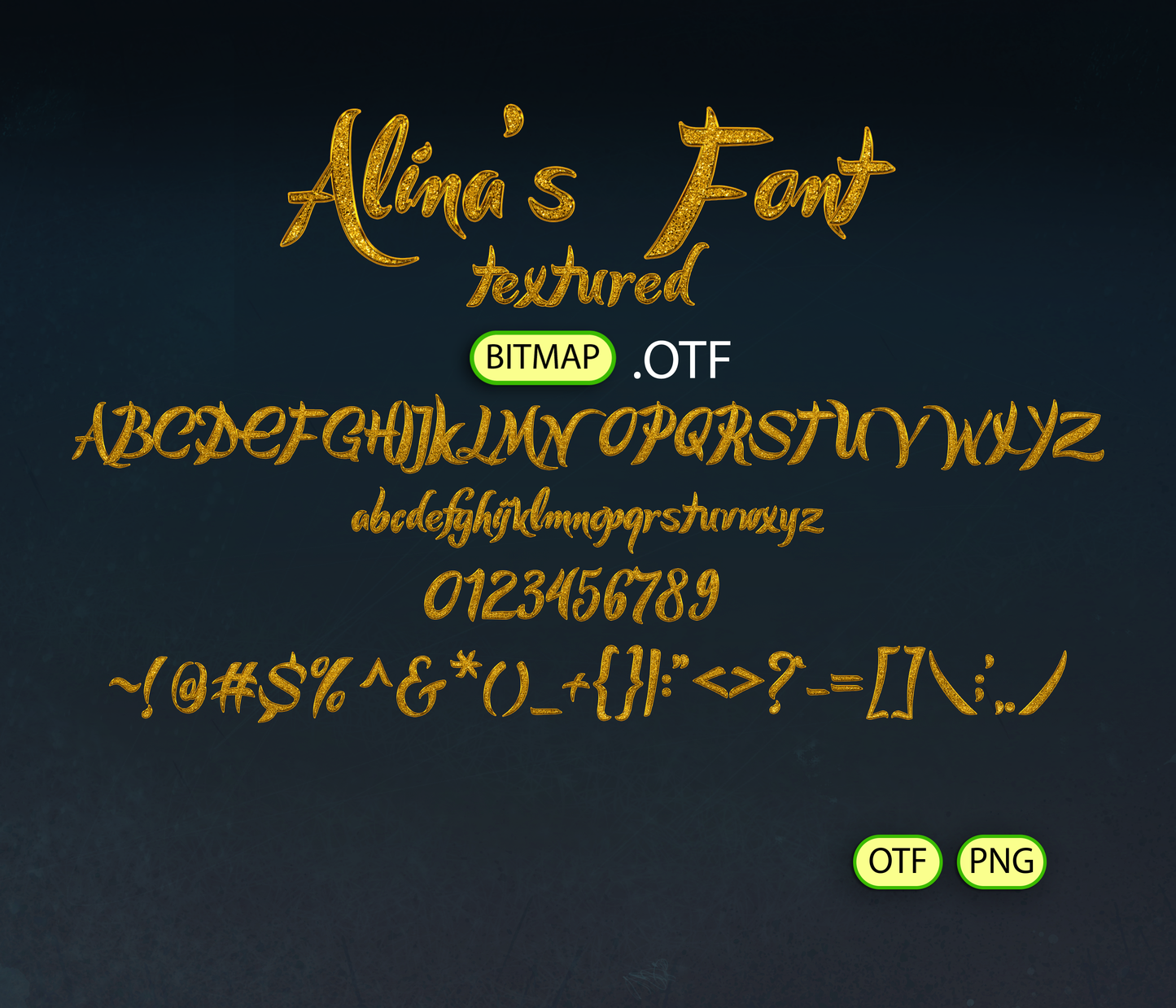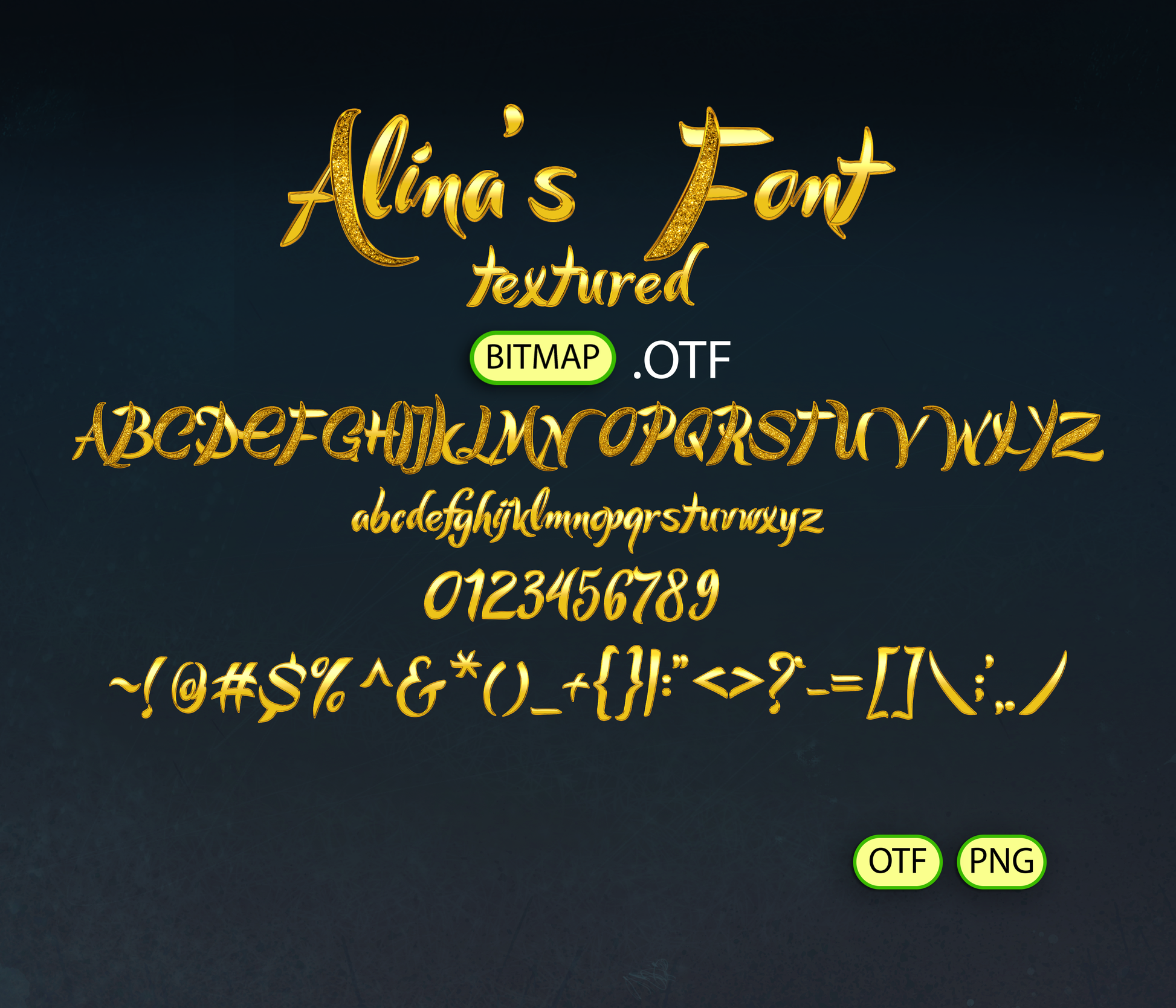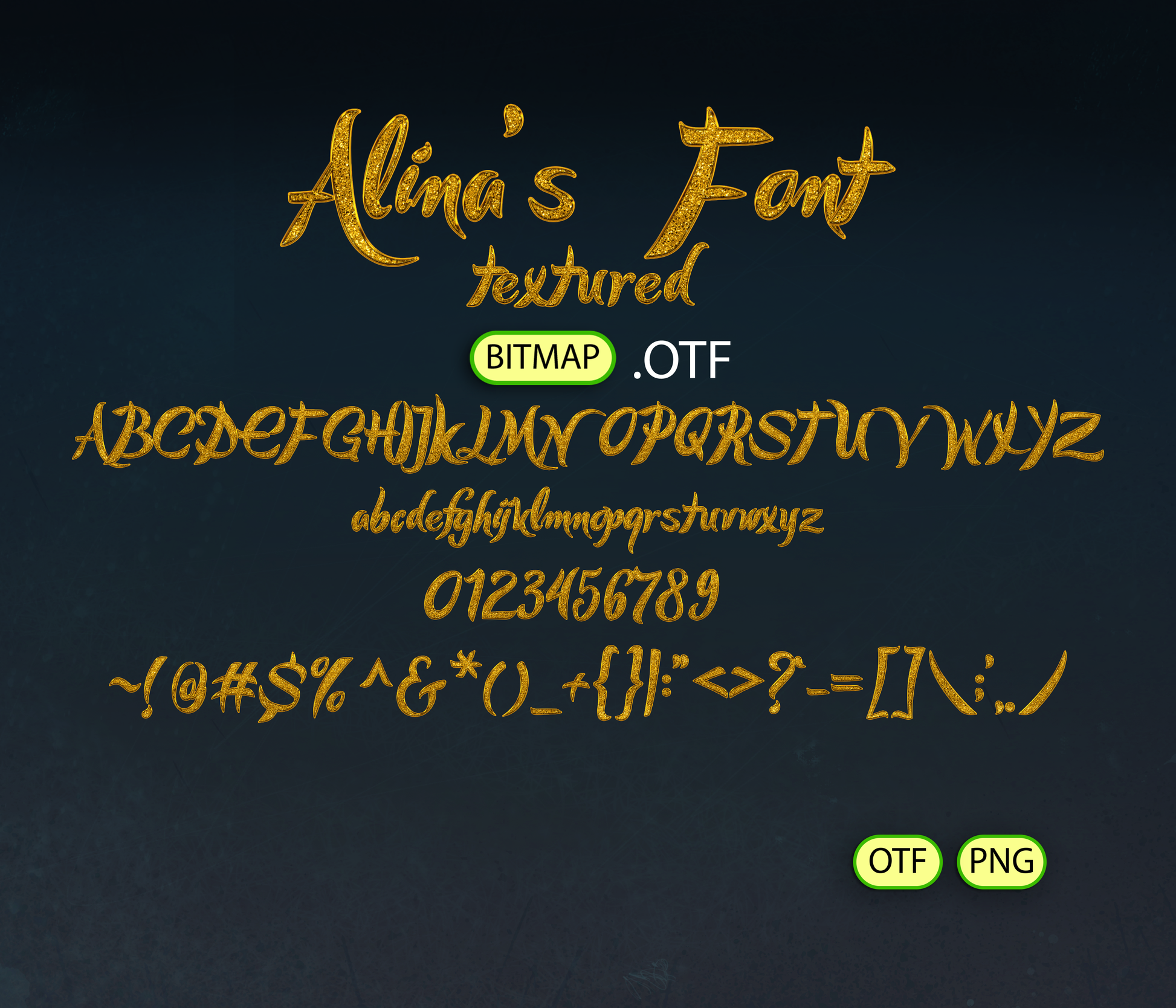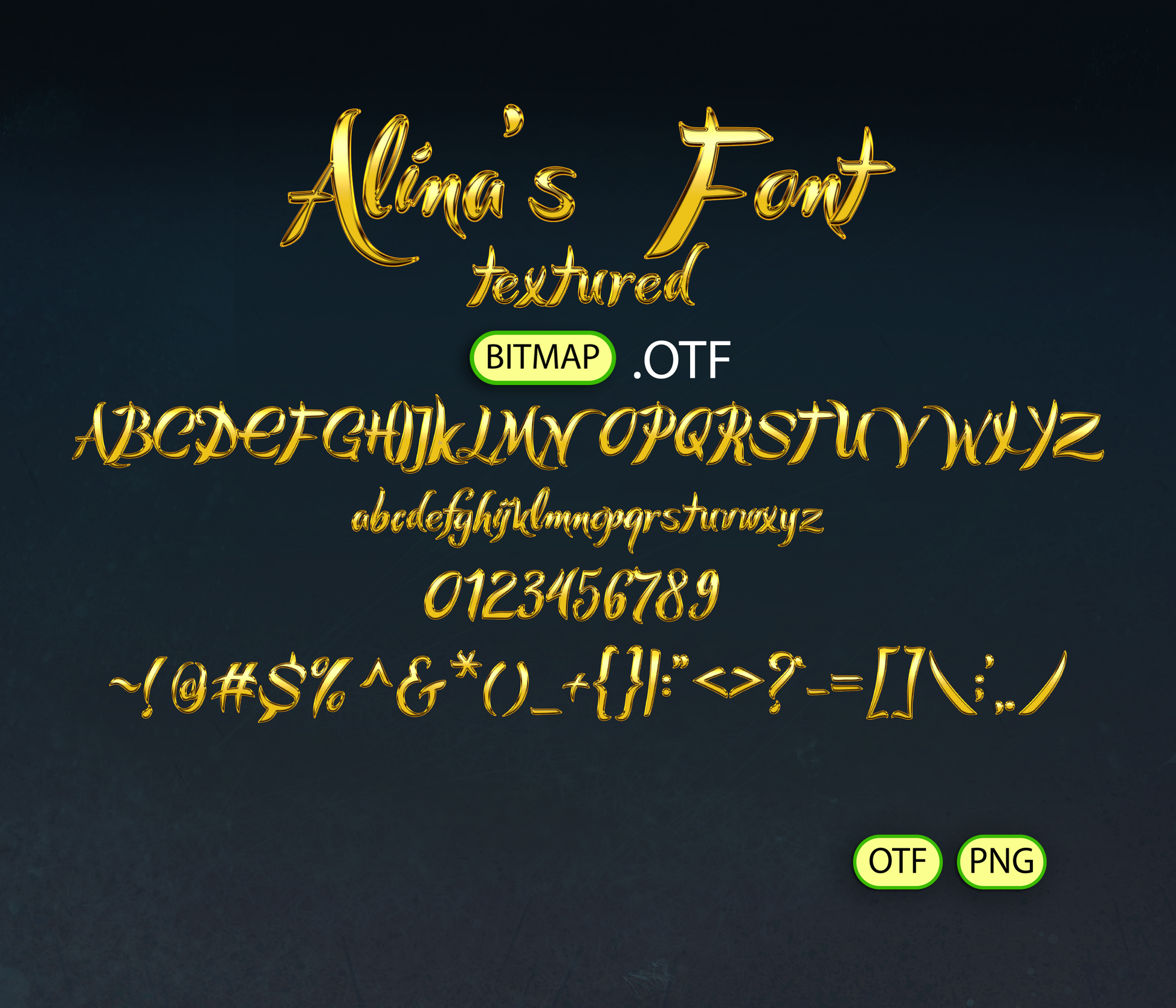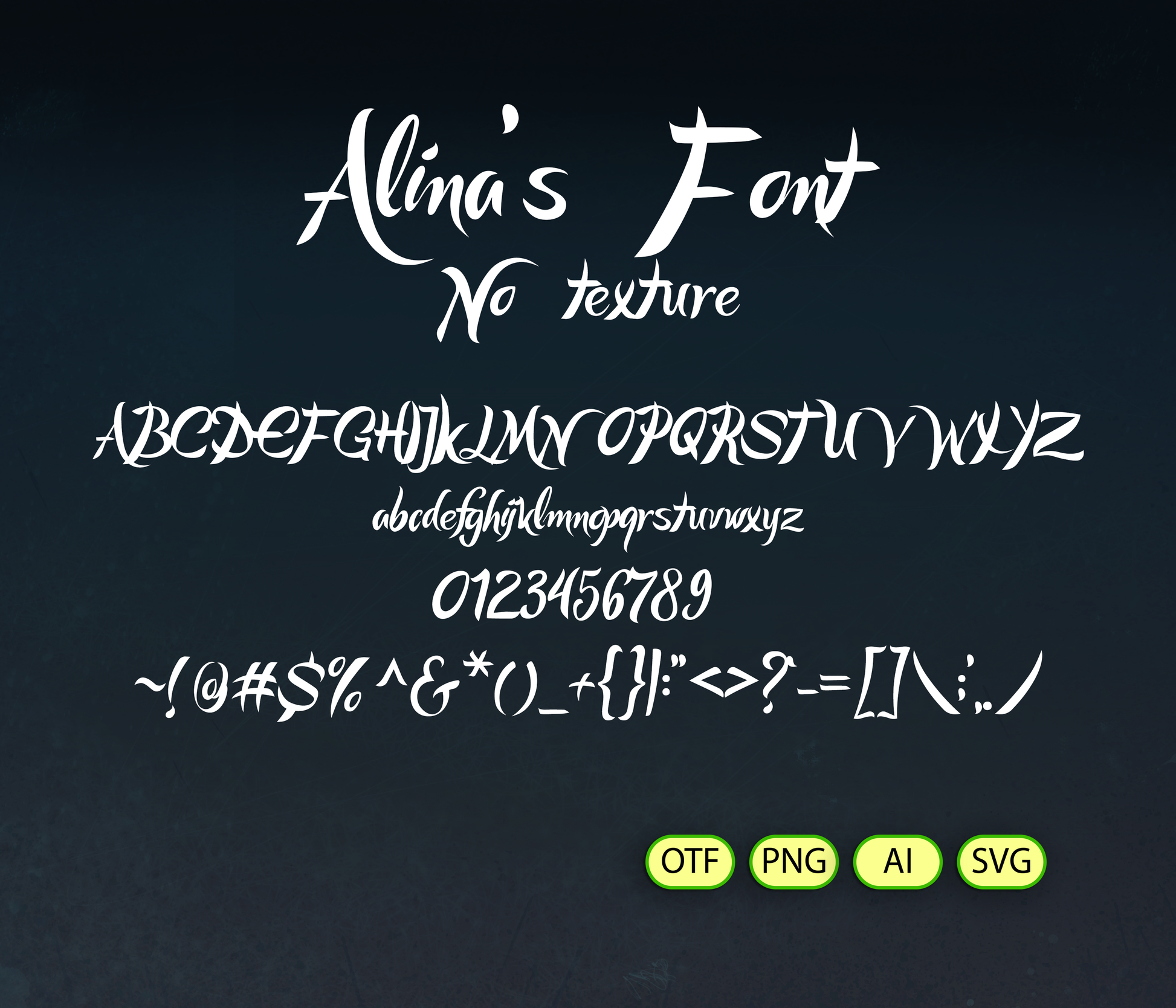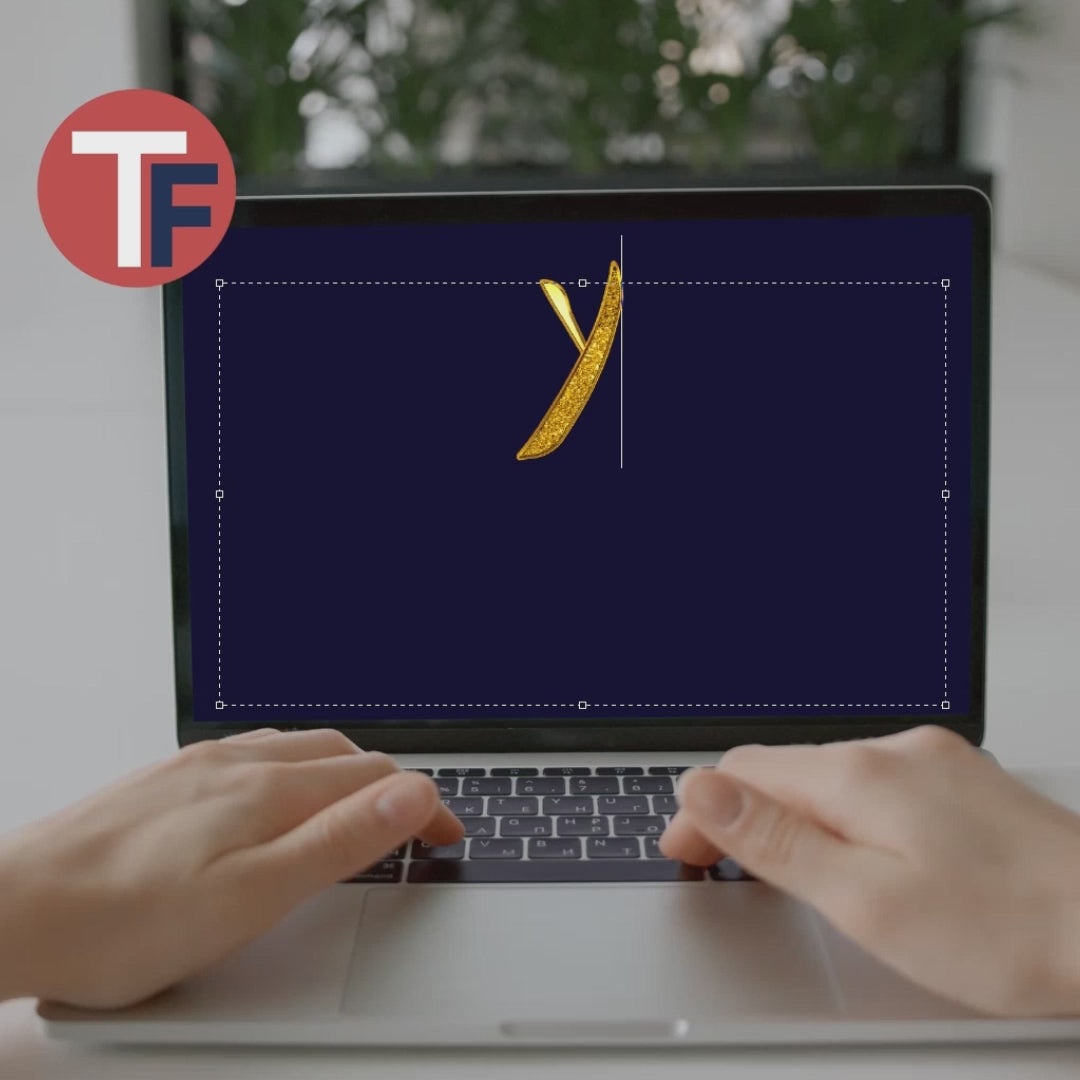
Magic Lamp Font Textured Bundle
The Magic Lamp Textured Font is a whimsical typeface inspired by the enchanting narrative of a famous tale. Capturing the exotic and adventurous spirit of this magical story, this font opens up creative possibilities, akin to the allure of a magical lamp.
What is the Magic Lamp Font?
This font is a rich tapestry of colors and textures, bringing life to each character. It offers uppercase and lowercase letters, numerals, and special characters, transporting you to a realm of creativity bound only by your imagination. Each stroke evokes the magic of an Arabian night, making this font a journey through the mystic allure of the magical world.
Many look for a Magic Lamp font generator online, but none match this font's quality. It comes in textured colored and simple versions, perfect for use with a cutting machine.
What Can You Do With Magic Lamp Textured Font?
Fans will love using this font for themed projects, expressing their love for the beloved story. Here are some ideas:
- Create enchanting birthday cards whisking loved ones to a new world.
- Use a Cricut to cut out Magic Lamp letters for various crafts.
- Design a whimsical poster with song lyrics in Magic Lamp Textured Font.
- Create themed stencils for a magical touch on fabric, walls, or paper. Craft captivating cake toppers for themed parties.
- Make unique bookmarks with an enchanting vibe.
- Brew a spellbinding Halloween atmosphere with eerie invitations and decor, turning your spooky soiree into a mystical Arabian night. Decorate costumes with letters from the Magic Lamp Font.